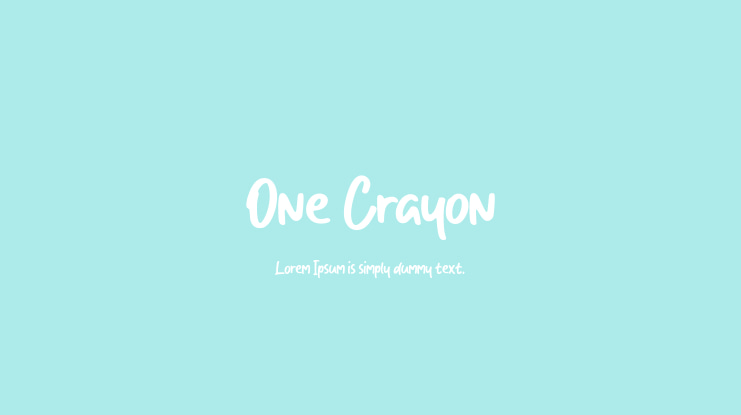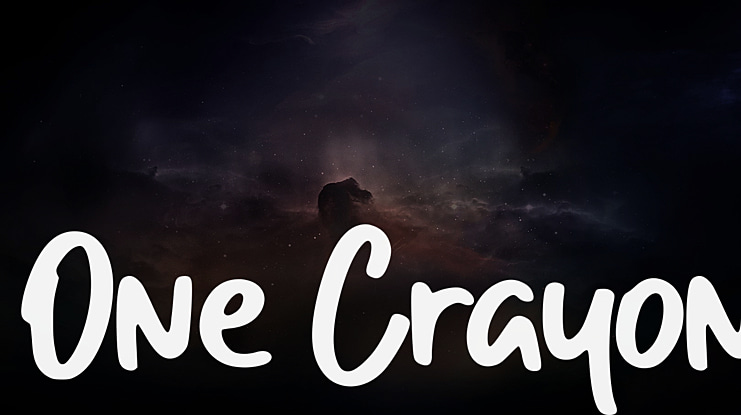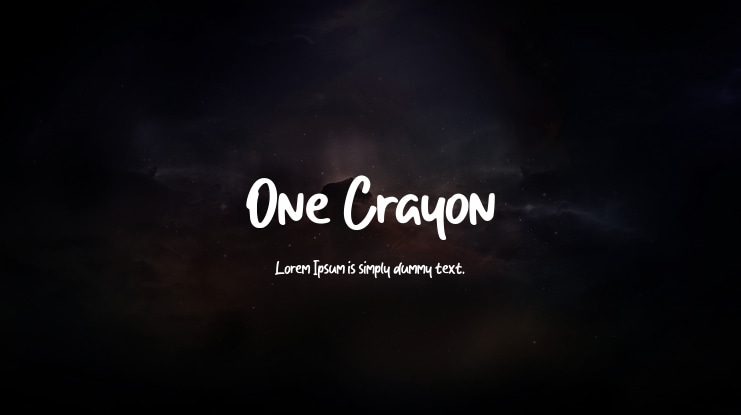
One Crayon Font
Balpirick Studio
Introducing by Balpirick Studio.
Proudly Present, One Crayon Font.
One Crayon is a Playful Handbrushed Font.
One Crayon is a cute and informal display font. It embodies playfulness and authenticity and is the perfect choice for any children activity or school project.